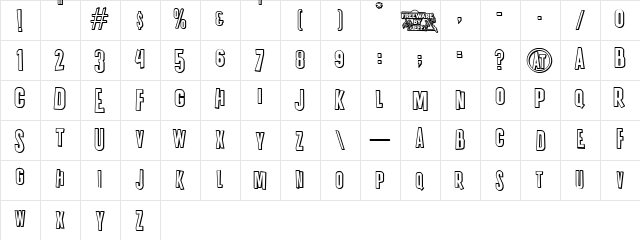
K.P. Duty Shadow JL Regular
| Foundry | Jeff's Fonts & Dingbats |
| Designer | Jeffrey N. Levine |
Design Context for K.P. Duty Shadow JL Typeface
K.P. Duty Shadow JL is built around its visual character rather than neutral utility — its distinctive forms are designed to make an impression at display sizes.
Font Pairing: Pair with a clean neutral sans-serif for body copy to let K.P. Duty Shadow JL's character lead without overwhelming the composition.
Pro Tip: Use K.P. Duty Shadow JL exclusively at display sizes — it was designed to be seen, not read at length. Let a neutral companion handle body copy.